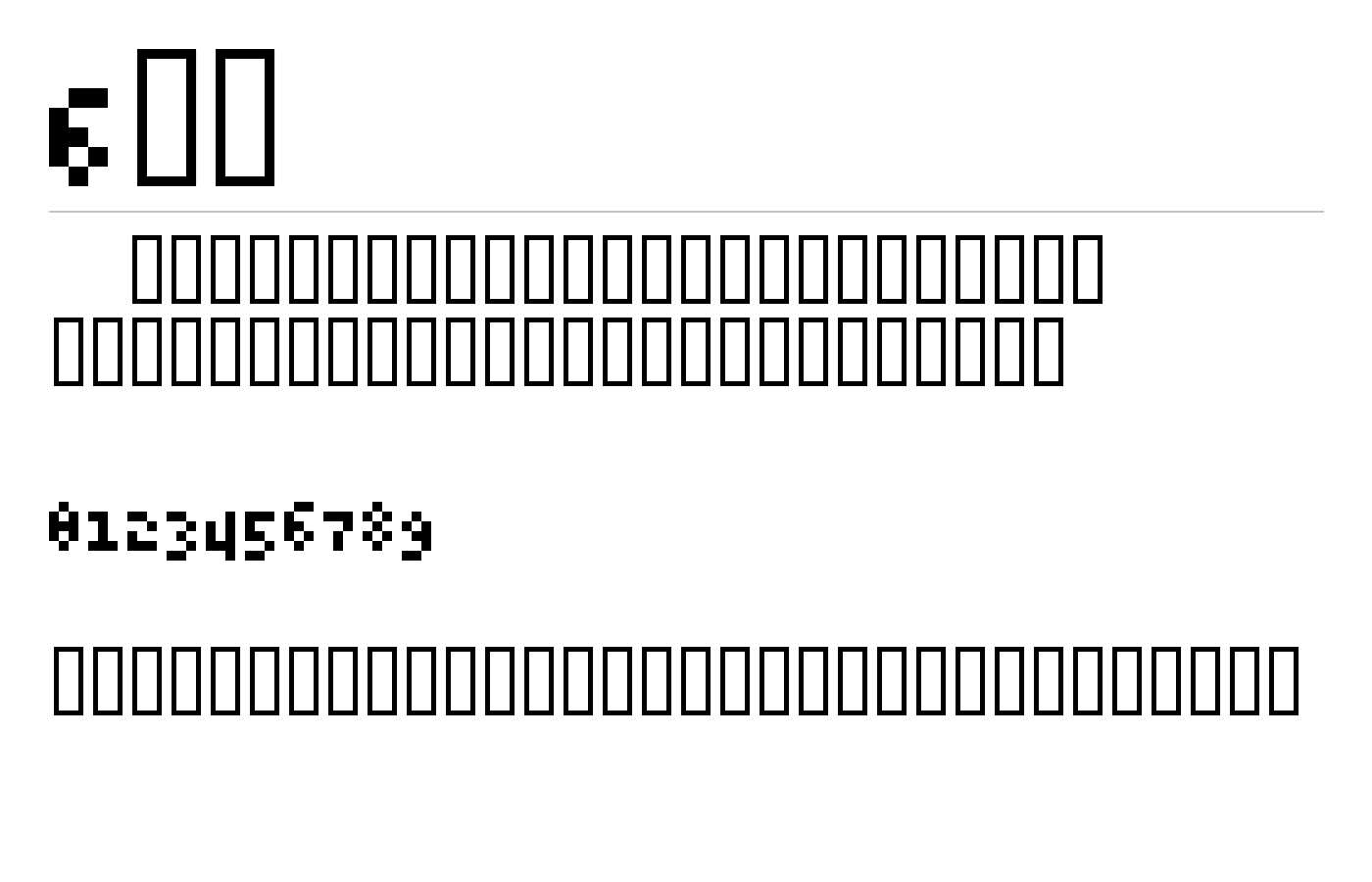
6px Font is a pixelated, monospaced sans serif typeface designed with a minimalist, blocky aesthetic that evokes early digital and video game text. Its compact, uniform characters feature low x-height, sharp edges, and consistent stroke weight, making it ideal for retro-inspired designs, coding interfaces, or low-resolution display contexts where clarity and nostalgic charm are key. This font’s straightforward, techy personality works best for headlines, UI elements, and any creative project seeking a vintage digital vibe.
6px Font